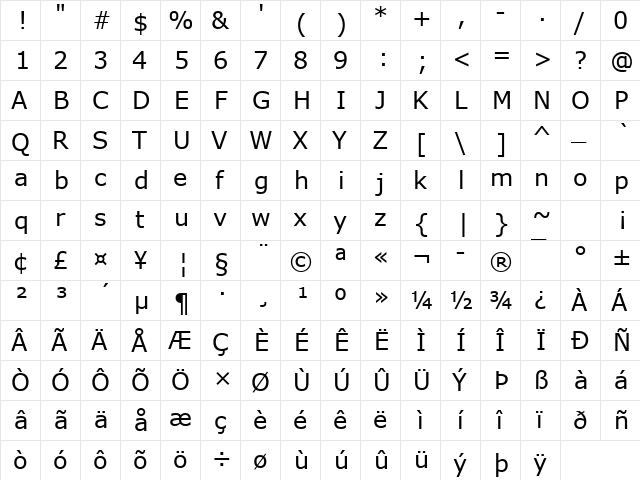
Verdana Ref Regular
| Foundry | Microsoft Corp. |
| Designer | Matthew Carter |
Design Context for Verdana Ref Typeface
Verdana Ref offers clean, dependable letterforms without strong stylistic allegiance, making it a practical choice for designers who need flexibility.
Pro Tip: Pair Verdana Ref with a font of contrasting weight or personality to build a more expressive typographic hierarchy.